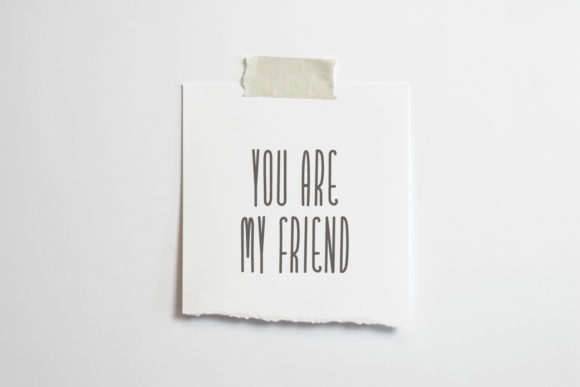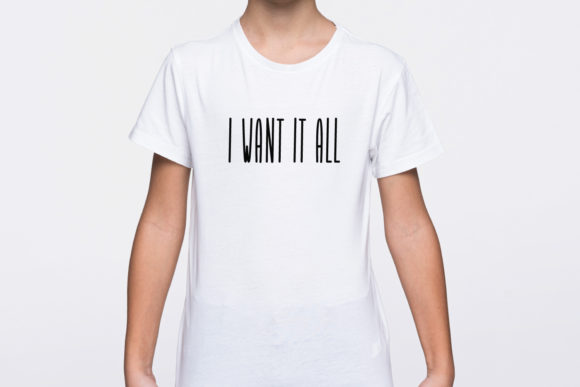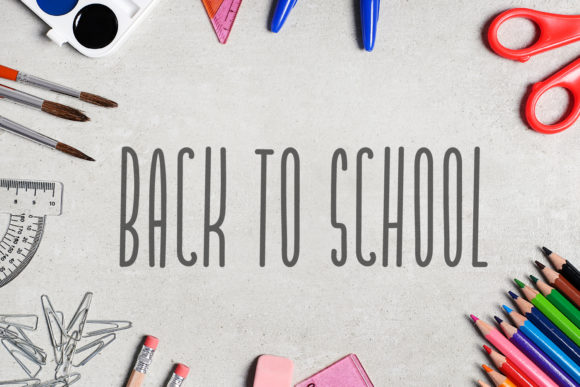
Introduction to Lovely Land Font
Lovely Land is a simple and tall display font.
Fun, genuine and featuring all round letters, this font will complement each of your design ideas .